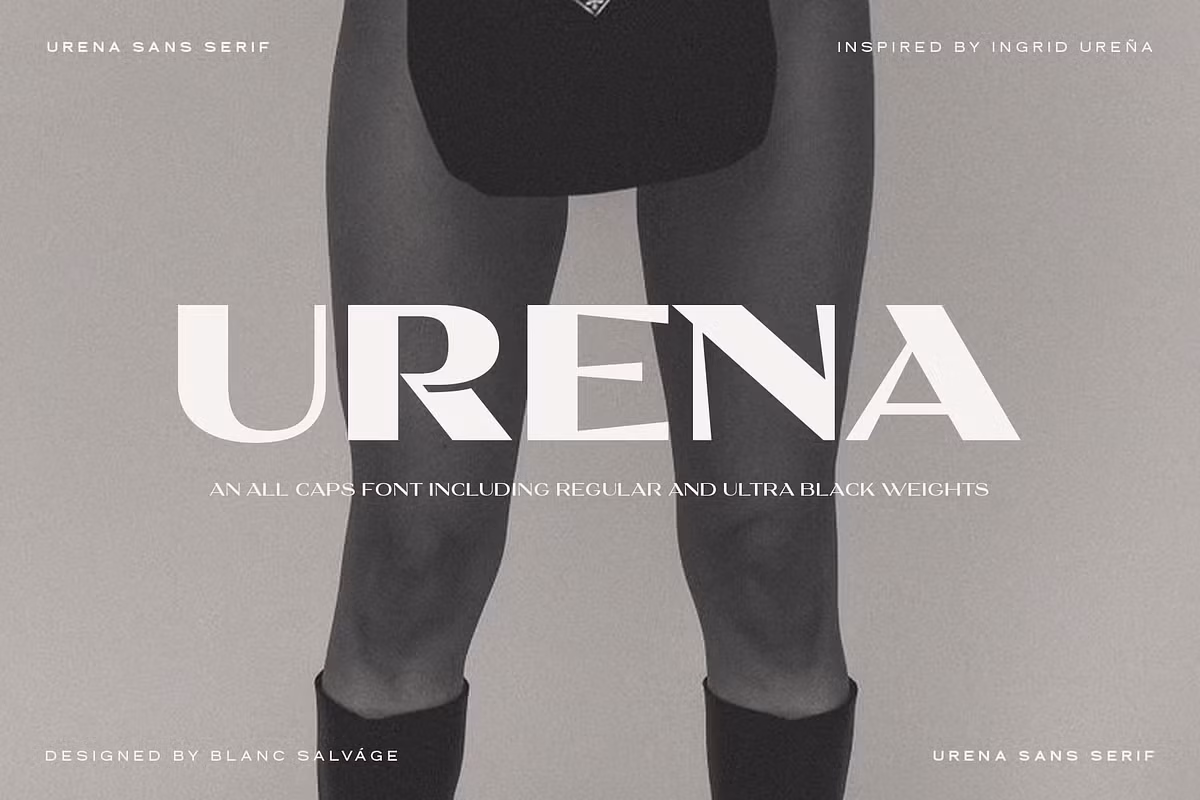
Urena Ultra Wide Sans Serif Free Download
Urena Ultra Wide Sans Serif Font Free Download is a bold and modern typeface with an extended width that commands attention. With its clean lines, wide stance, and contemporary aesthetic, Urena is perfect for impactful headlines, branding, poster design, web banners, and tech-inspired visuals.
Urena Ultra Wide Sans Serif Font Free Download delivers strong visual presence and excellent readability, making it a go-to choice for designers seeking a bold, modern look. Whether you're crafting a futuristic logo or designing bold editorial layouts, Urena adds power and clarity to every project. Download it now and make your typography stand out with ultra-wide style.